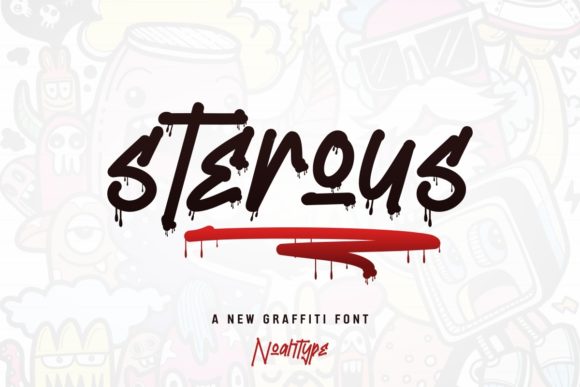
Prepare to be dazzled by Sterous Font, the captivating display font with a rebellious spirit! Inspired by the vibrant energy of street art and the timeless allure of classic artwork, Sterous brings an unparalleled artistic flair to your designs. Its graffiti-inspired strokes infuse your projects with an authentic, eye-catching appeal that demands attention.
Embrace the raw, urban aesthetic of Sterous and unleash your creative vision. Its bold, expressive characters dance across your designs, evoking the energy and passion of street art. Make a lasting impression with logos that pop, branding that captivates, and social media posts that ignite engagement. Sterous is your passport to a world of artistic expression, where your designs transcend the ordinary and become masterpieces of urban art.
Express yourself with the freedom and creativity of Sterous Font. With its PUA encoding, you'll have effortless access to a treasure trove of glyphs and swashes, empowering you to add intricate details and flourishes that elevate your designs to new heights. Unleash your imagination and let Sterous guide you on a journey of artistic exploration, where every project becomes a canvas for your creativity.
Step into the spotlight with Sterous Font and make a bold statement. Its unique style commands attention, making your designs stand out from the crowd. Captivate your audience, spark conversations, and leave an unforgettable impression. Sterous is the perfect choice for those who dare to be different, who embrace the unconventional, and who seek to make a lasting impact.
Don't let your designs fade into the background. Ignite them with the fiery passion of Sterous Font. Its vibrant energy will transform your projects, igniting a spark of excitement and intrigue. Experience the thrill of creating designs that resonate with your audience, designs that leave a lasting impression and inspire them to take notice.